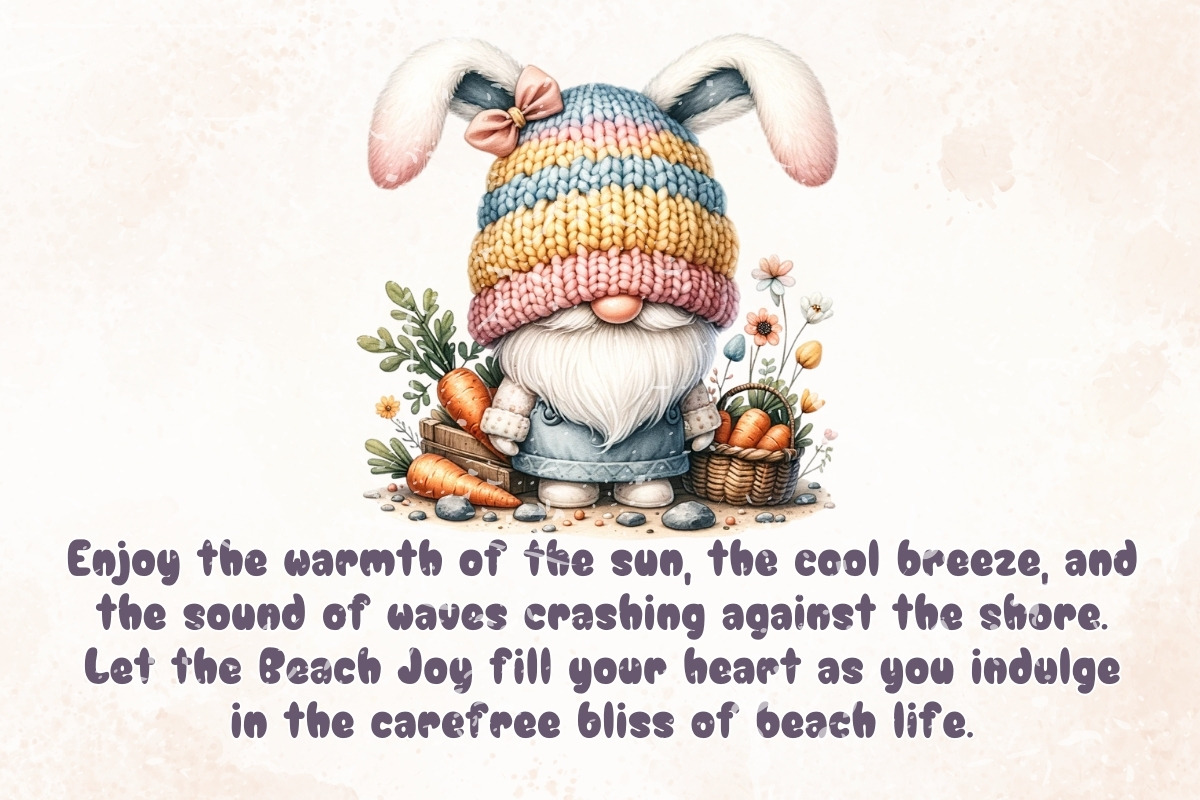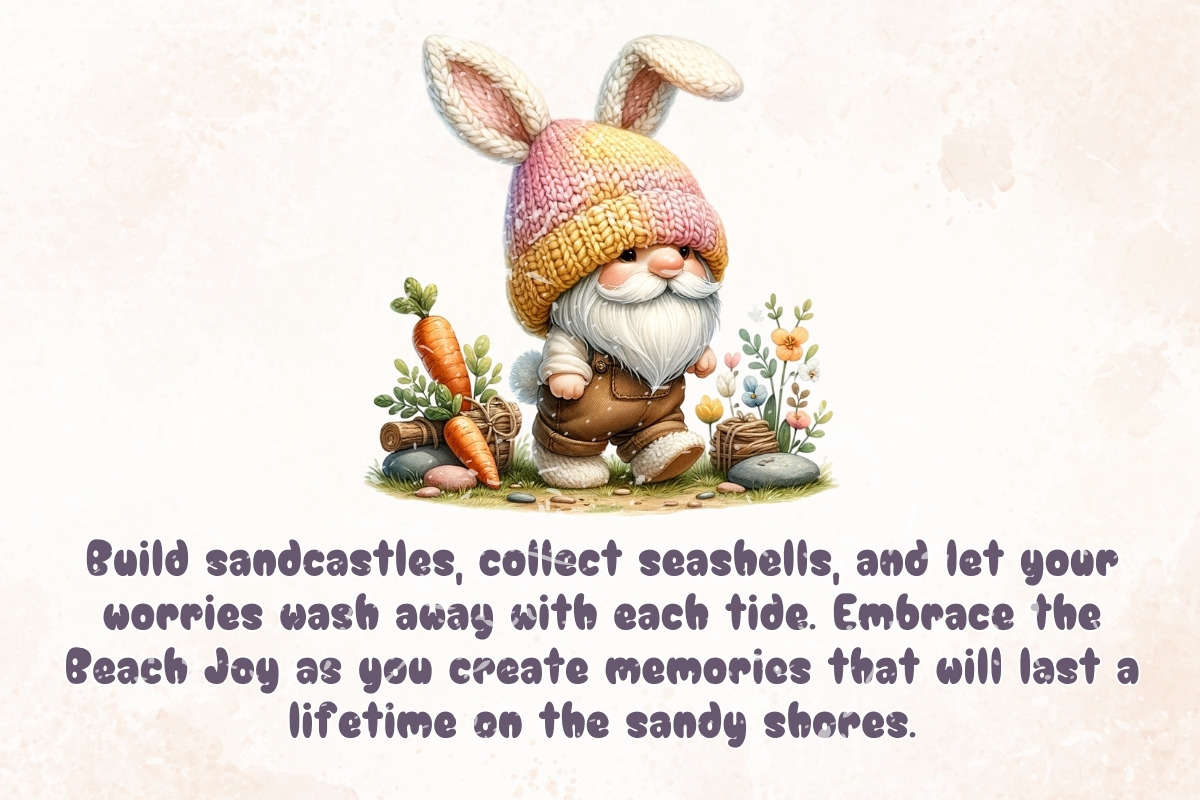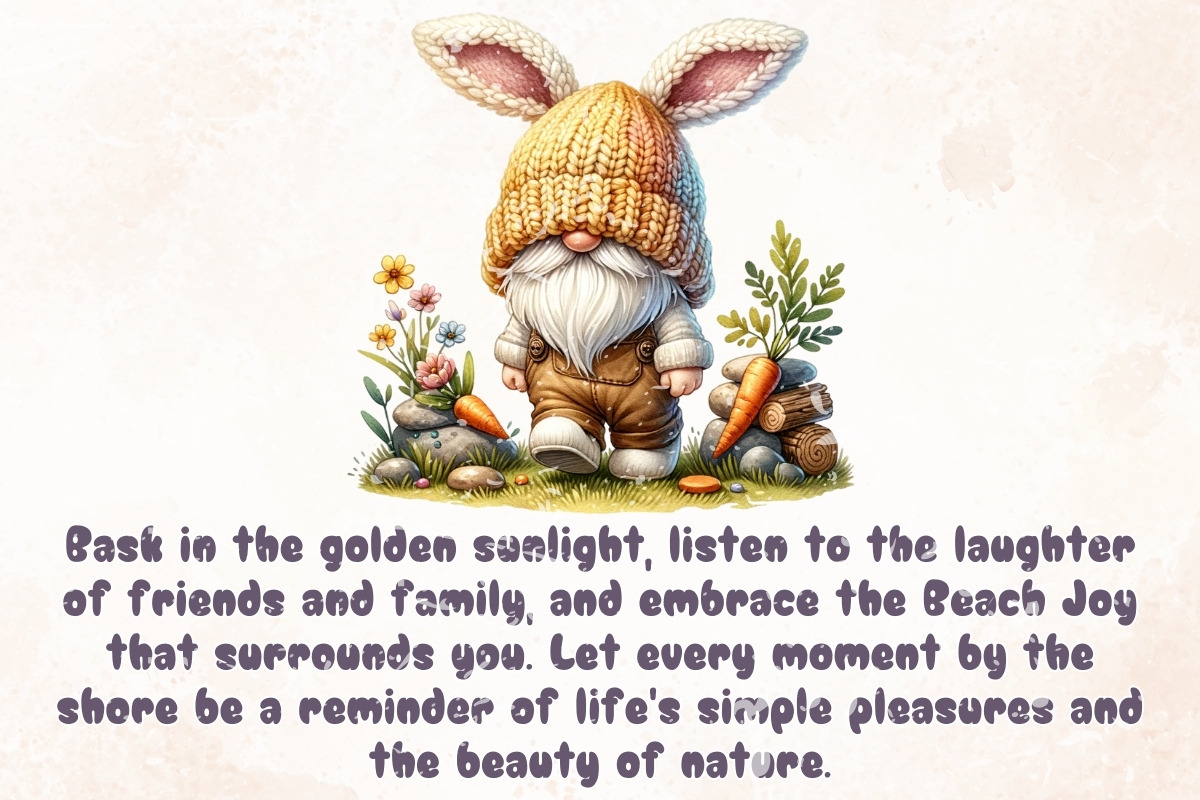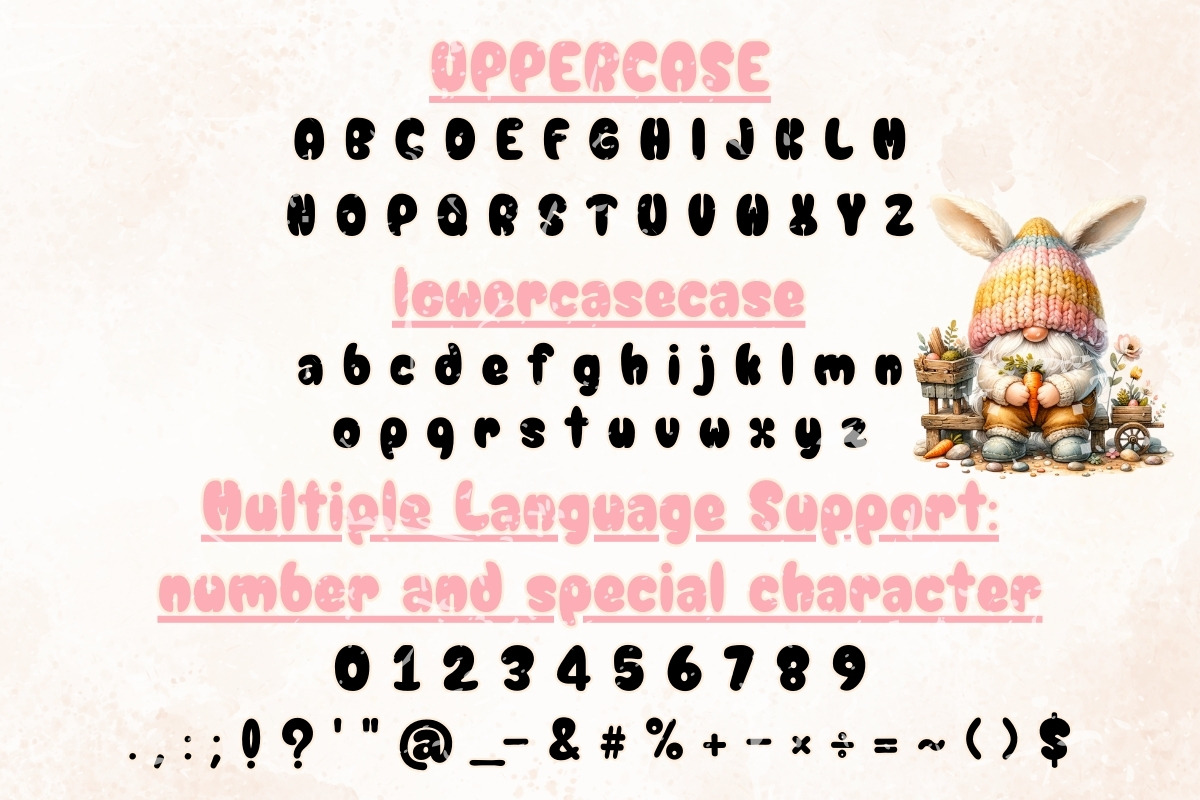
Smiley Bunny - Handwriting
Introducing "Smiley Bunny" - a delightful handwritten font that adds a touch of whimsy and charm to any project. With its playful strokes and endearing curves, Smiley Bunny brings a sense of joy and warmth to your designs. Whether you're creating greeting cards, invitations, or branding materials, this font will infuse your work with a cute and lovable aesthetic. Say goodbye to boring typography and let Smiley Bunny enchant your audience with its adorable personality.